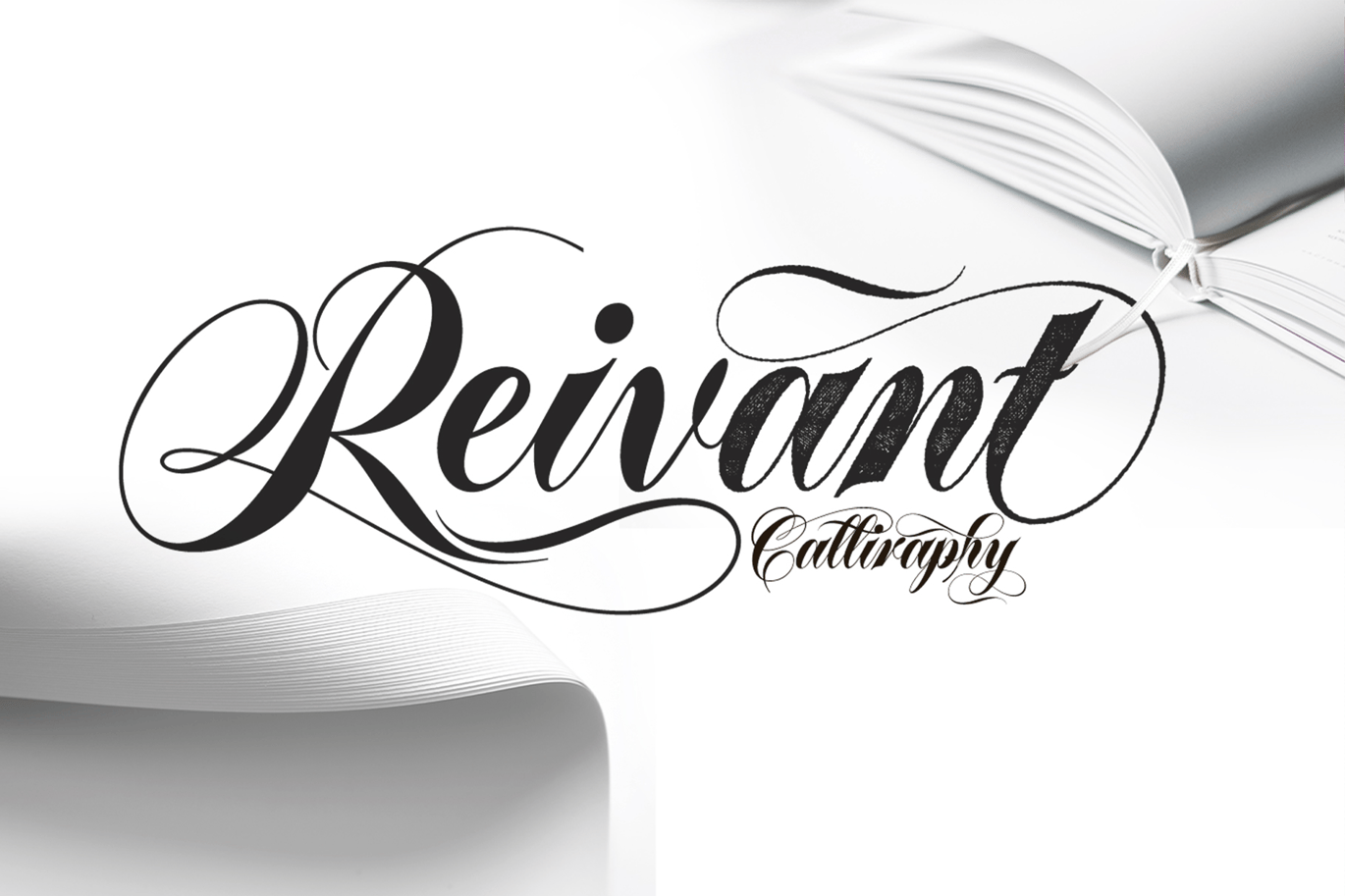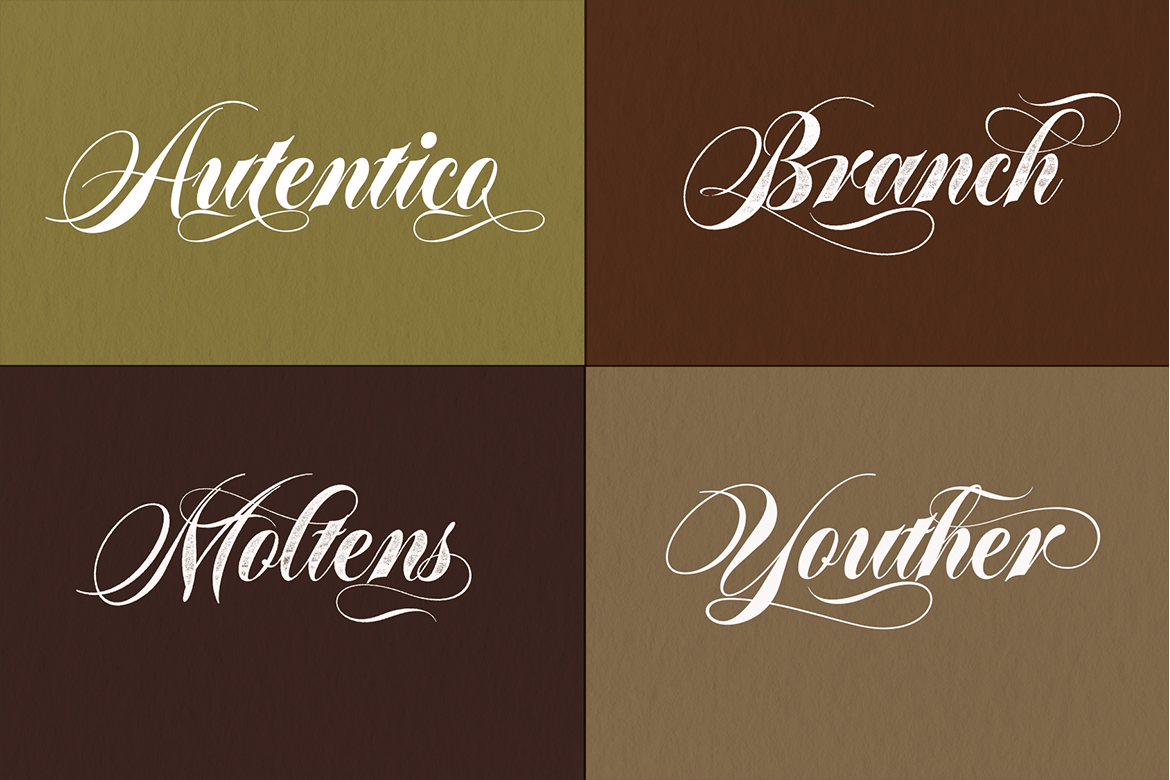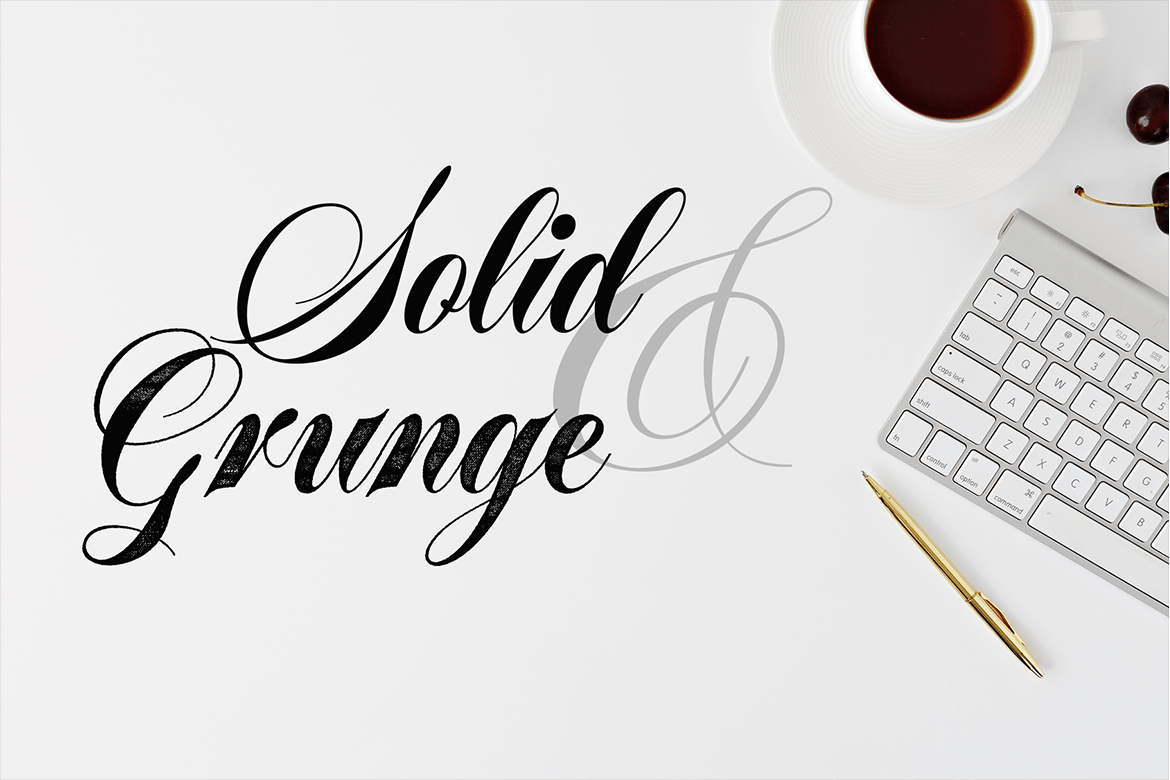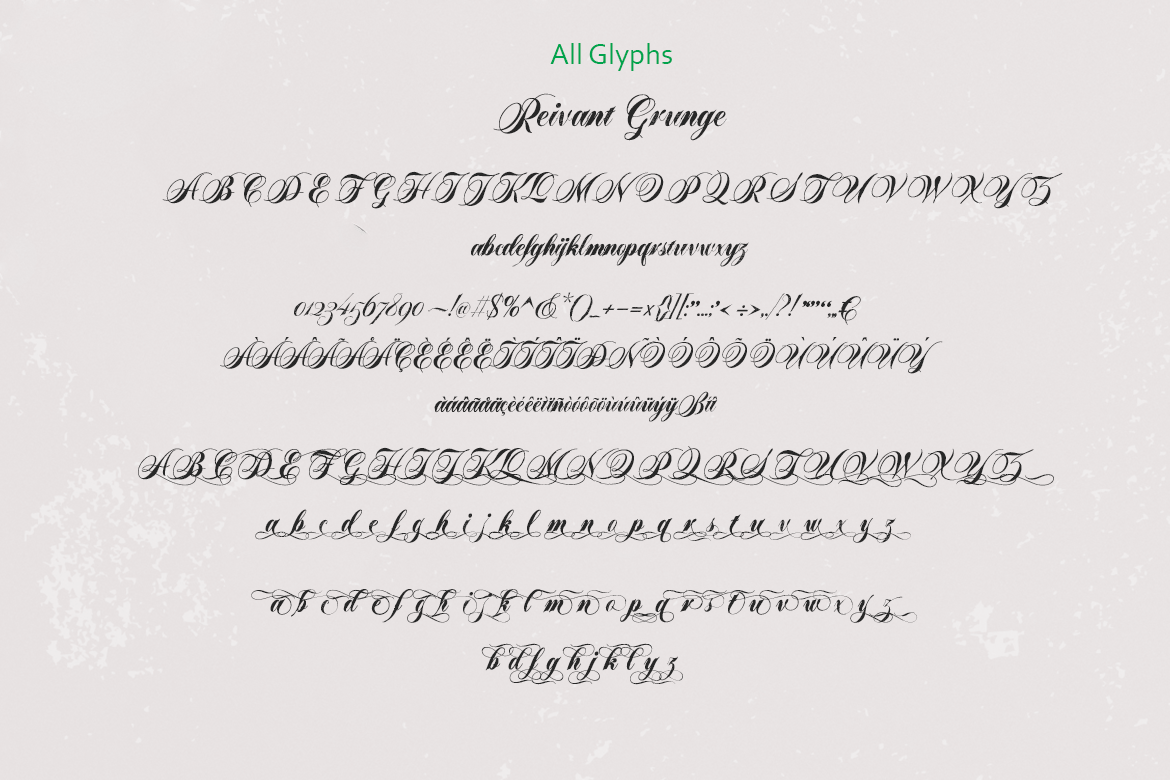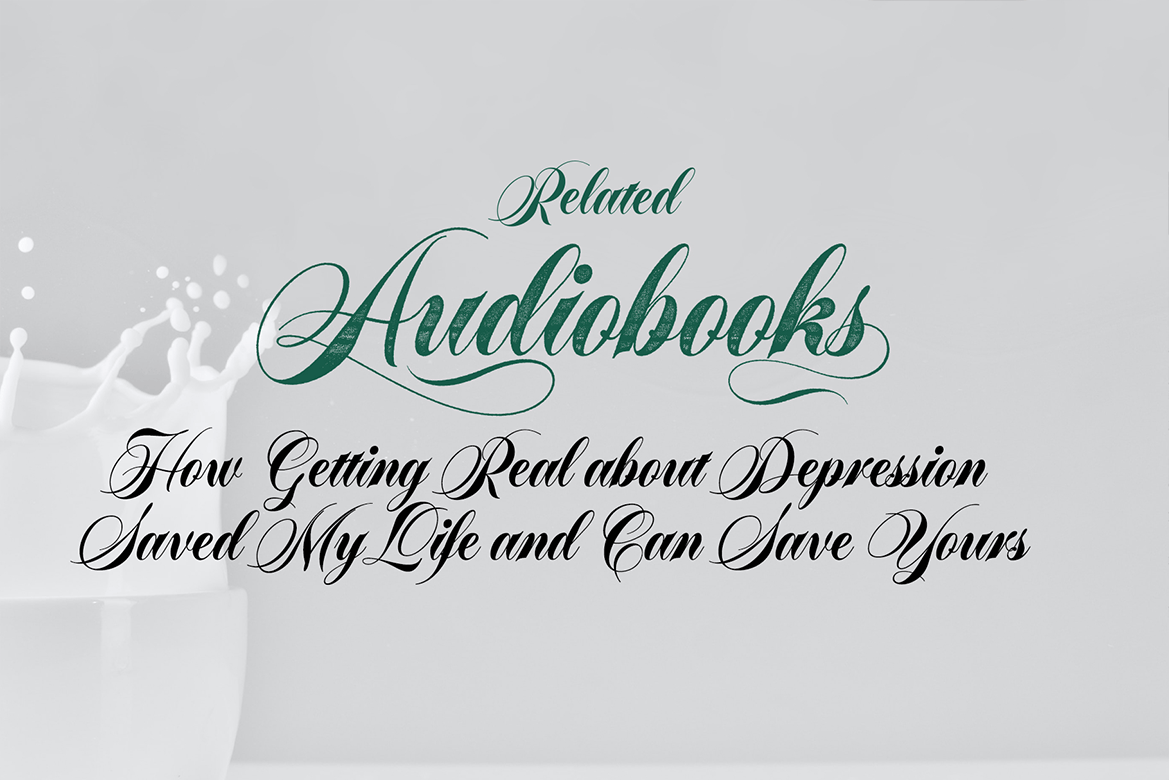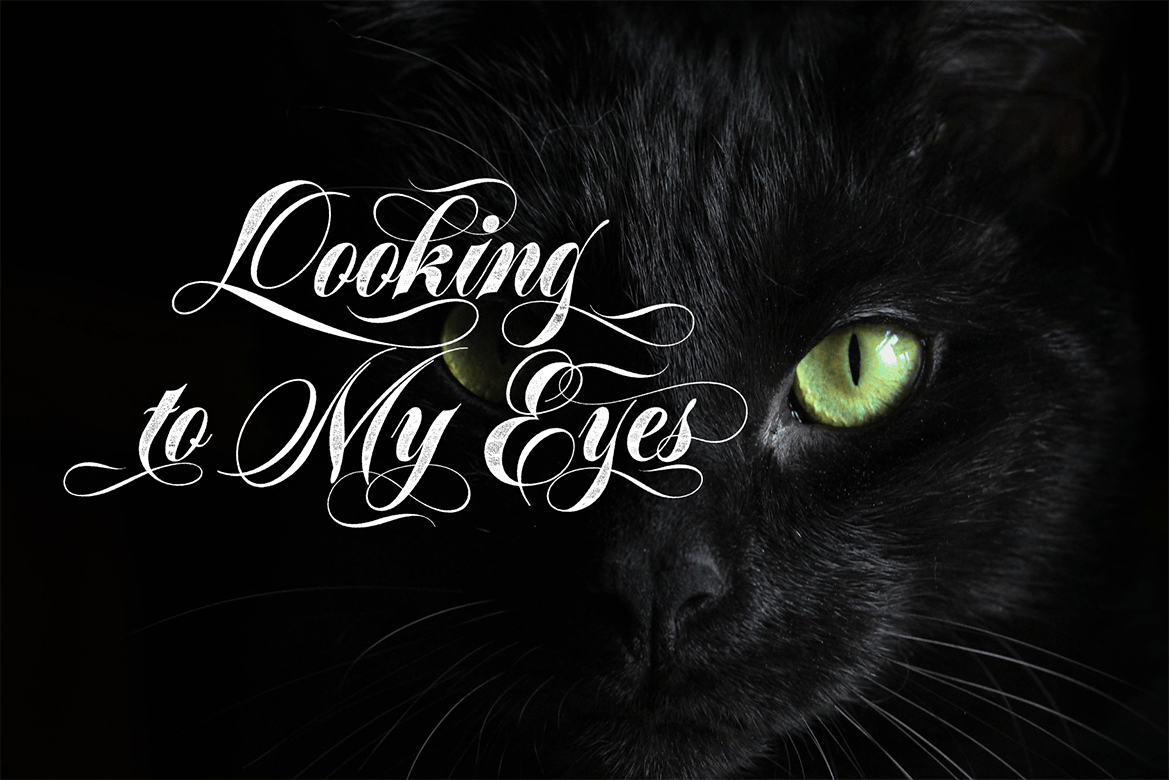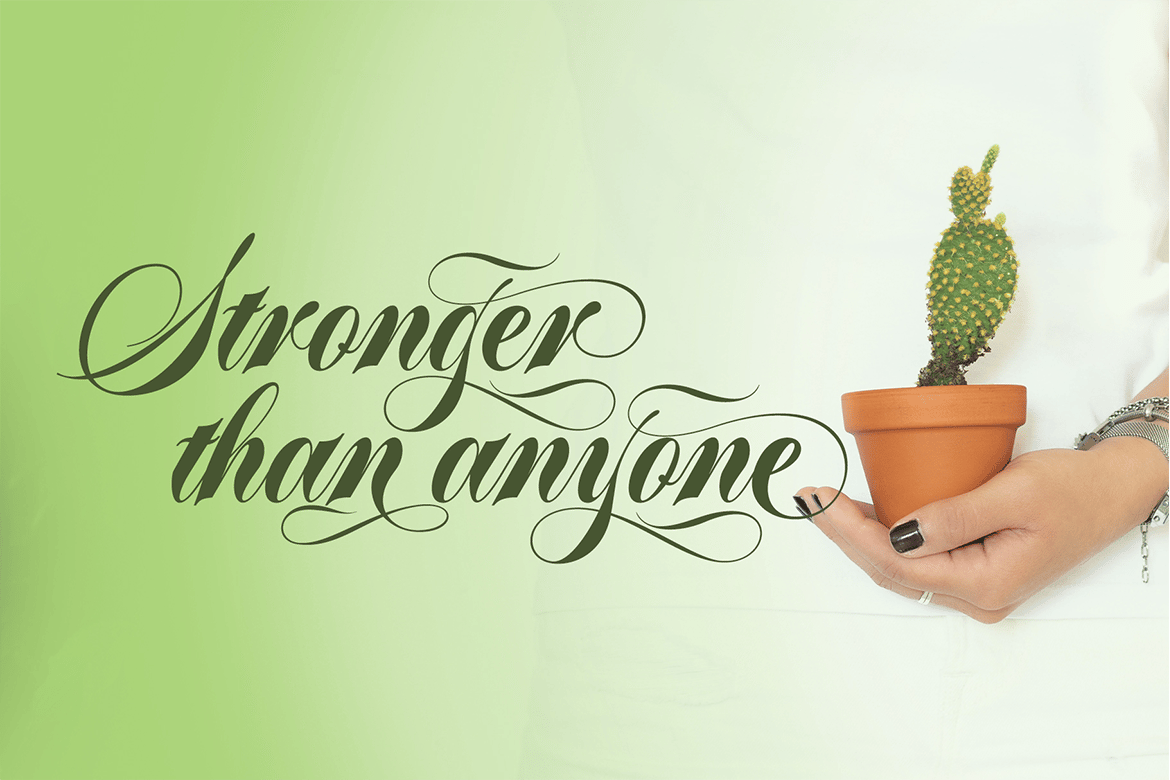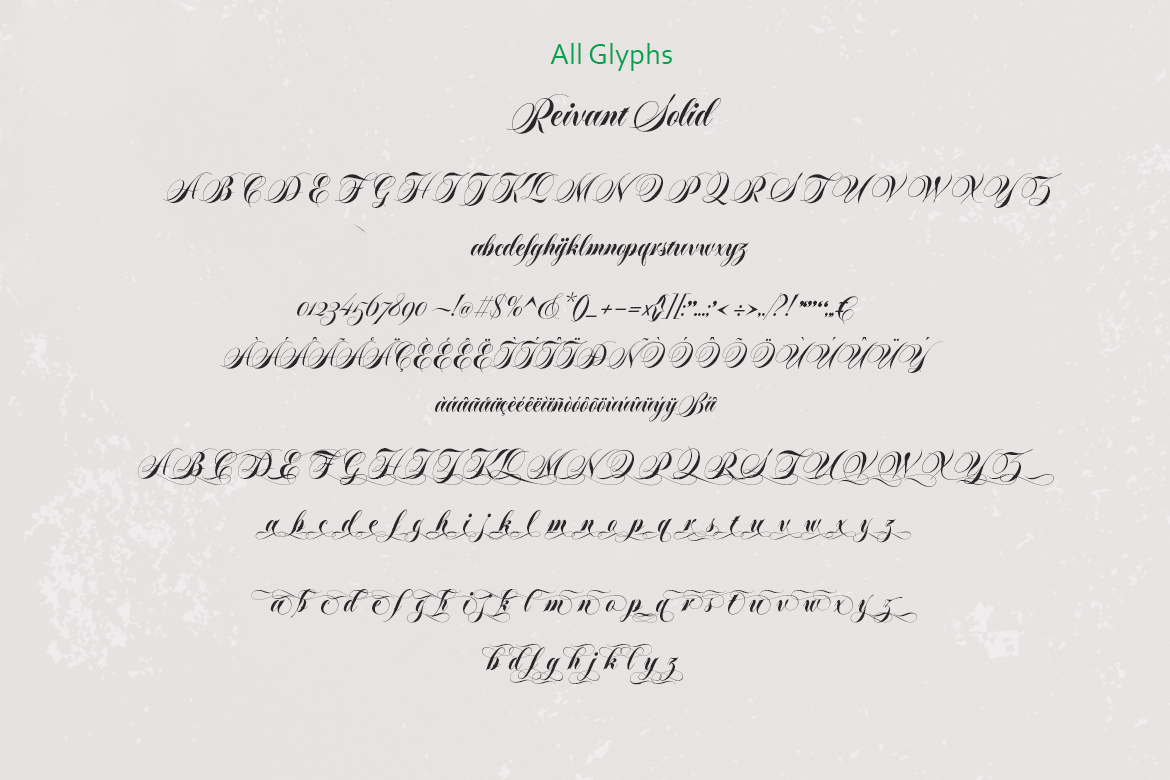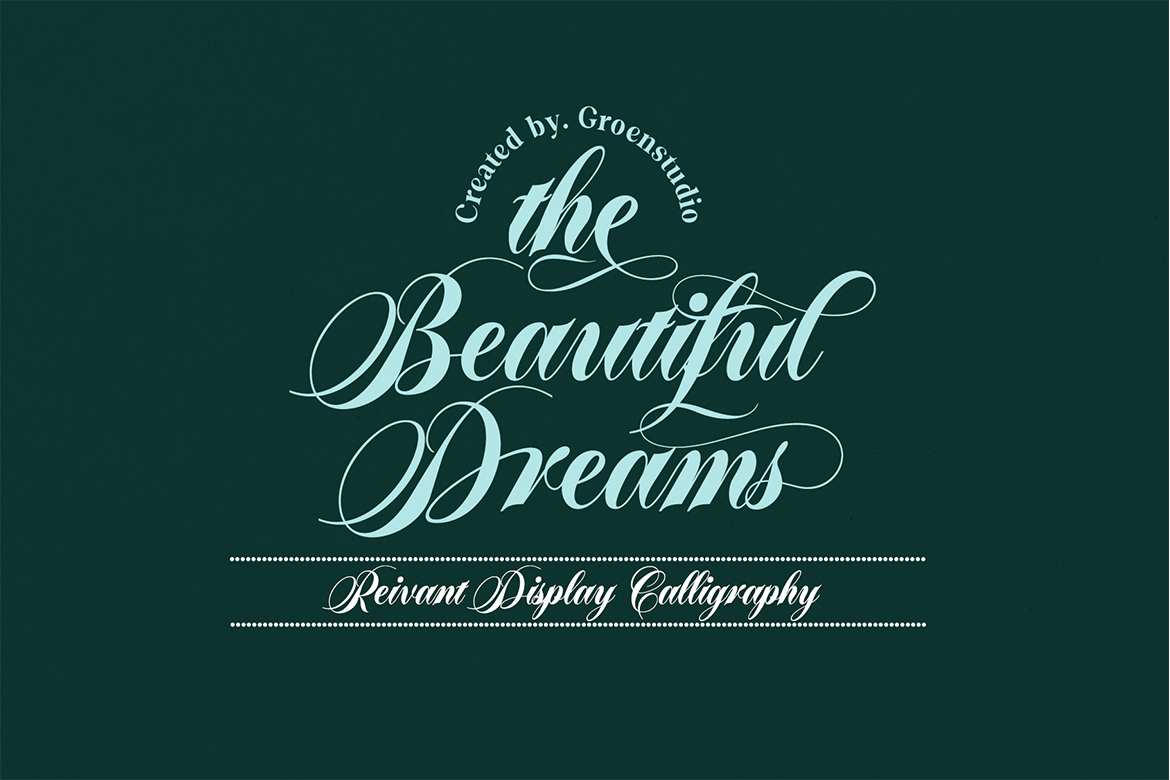
Reivant//Wedding Calligraphy Font
Reivant is a script font, so this beautiful and unique script font is a model of modern calligraphy typography combined with calligraphy writing style.
Reivant Grunge is a script font, so it’s made with a different touch, namely it has a cracked texture and the style is the same as Reivant Regular.
The Features of this fonts is:
- Contextual Alternates
- Standart ligatures
- Discretionary ligatures
- Swash Alternates
- Stylistic Alternates
- Stylistic sets